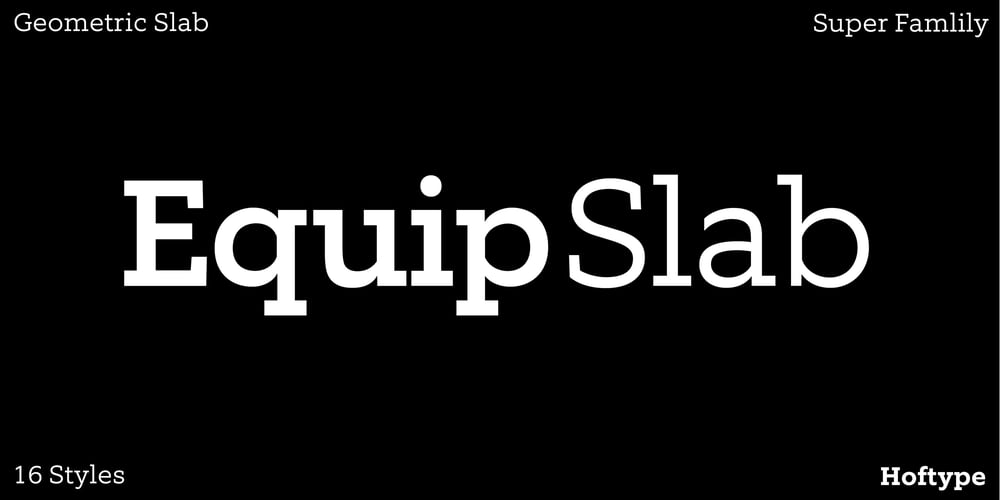
Equip Slab
Equip Slab font
Equip Slab Font Family was designed by Dieter Hofrichter and published by Hoftype. Equip Slab contains 16 styles and family package options. Equip Slab, a new hardline, serif dominated face designed on the same geometric base as the rest of the Equip family. With its clarity it appears strong, imperative and straight forward. The Equip Slab family comprised 16 styles and is well suited for ambitious typography. It comes in OpenType format with extended language support. All weights contain ligatures, proportional lining figures, tabular lining figures, proportional old style figures, lining old style figures, matching currency symbols, fraction- and scientific numerals and matching arrows.